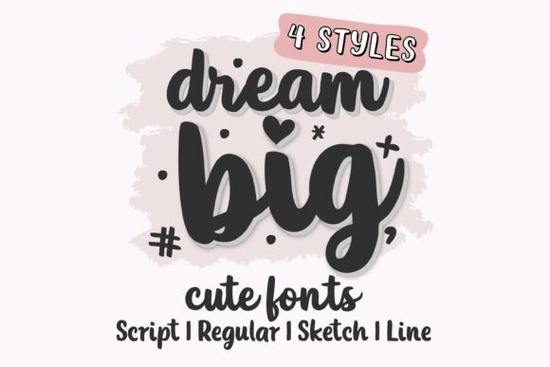
If you're looking for a versatile handwritten font that brings warmth and personality to your creative projects, the Dream Big Bundle Font is worth a closer look. Designed with crafters, small business owners, and digital creators in mind, this bundle includes four distinct styles Script, Regular, Sketch, and Line that work seamlessly across platforms like Cricut, Silhouette, Procreate, and Canva. Whether you’re designing greeting cards, custom mugs, planner stickers, or branding elements, these fonts offer flexibility without sacrificing charm.
What makes the Dream Big Bundle Font stand out?
Unlike single-style script fonts that limit your design options, this bundle gives you multiple interpretations of the same friendly handwriting aesthetic. The Script version delivers smooth, connected letterforms ideal for elegant quotes or invitations. The Regular style offers a cleaner, more legible take great for short phrases on t-shirts or product labels. If you prefer a hand-drawn feel, the Sketch variant adds subtle texture and variation, while the Line style mimics fine-line pen strokes, perfect for minimalist designs or layered compositions.
How does it compare to other script fonts?
Handwritten script fonts are everywhere, but not all offer this level of variety in one package. For example, if you’ve used the Dainty Romance Script Bundle, you know it leans toward delicate, flowing elegance ideal for wedding stationery or feminine branding. The Dream Big Bundle, by contrast, feels more upbeat and approachable, making it better suited for motivational quotes, kids’ crafts, or casual merchandise.
Similarly, fonts like Western Font bring a rustic, bold energy, while Cursive Delight offers refined loops and formal flair. If you enjoy the structured bounce of Brasky Font, you might appreciate Dream Big’s looser, freer rhythm it’s less about precision and more about expressive authenticity.
What kinds of projects work best with this font?
Thanks to its range of weights and textures, the Dream Big Bundle adapts easily to many formats:
- T-shirts and apparel: Use the Script or Regular style for uplifting slogans like “You Got This” or “Create Every Day.”
- Mugs and drinkware: The Sketch version adds a cozy, handmade vibe to morning affirmations.
- Planner inserts and stickers: The Line style pairs beautifully with bullet journals or habit trackers.
- Greeting cards: Layer Script over watercolor backgrounds for heartfelt messages.
- Social media graphics: All styles import smoothly into Canva for quick, on-brand posts.
Because each style shares consistent letterforms and spacing, you can mix and match within the same project say, using Script for a headline and Line for supporting text without clashing visually.
Is it beginner-friendly?
One tip: when using the Script version, enable contextual alternates in programs like Adobe Illustrator or Affinity Designer to access natural-looking letter connections. But even without advanced features, the font remains functional and attractive.